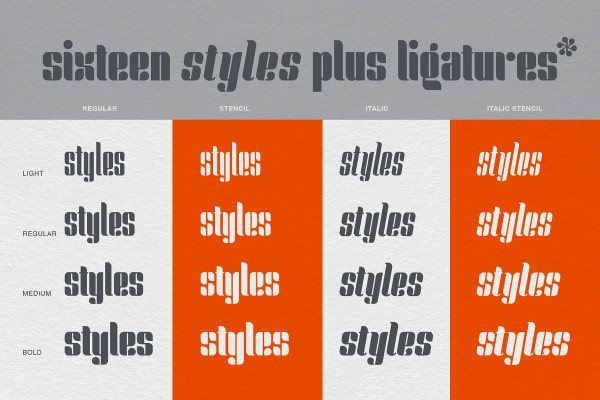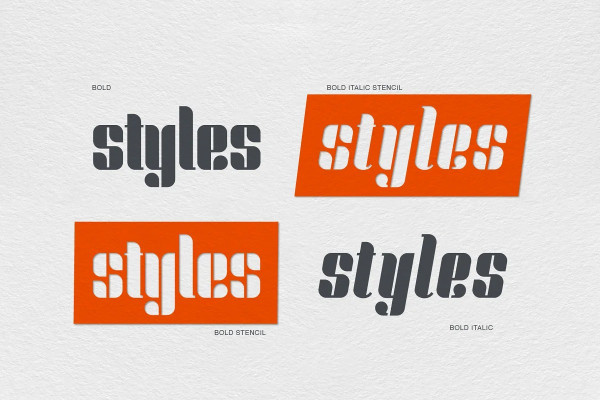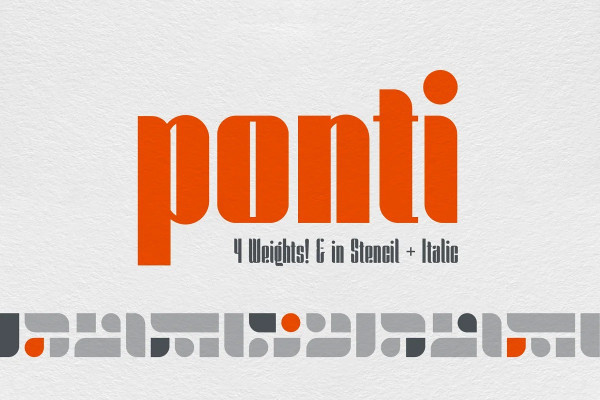
Ponti Font
Ponti Font, a modern retro modular typeface that was inspired by Giovanni “Gio” Ponti’s patterns. This typeface comes in four weights, Light, Regular, Medium and Bold. With four styles, Regular, Italic, Stencil, and Stencil Italic. This incredible condensed modern, playful typeface has tons of personality. Great for display purposes and handy for small blocks of copy.